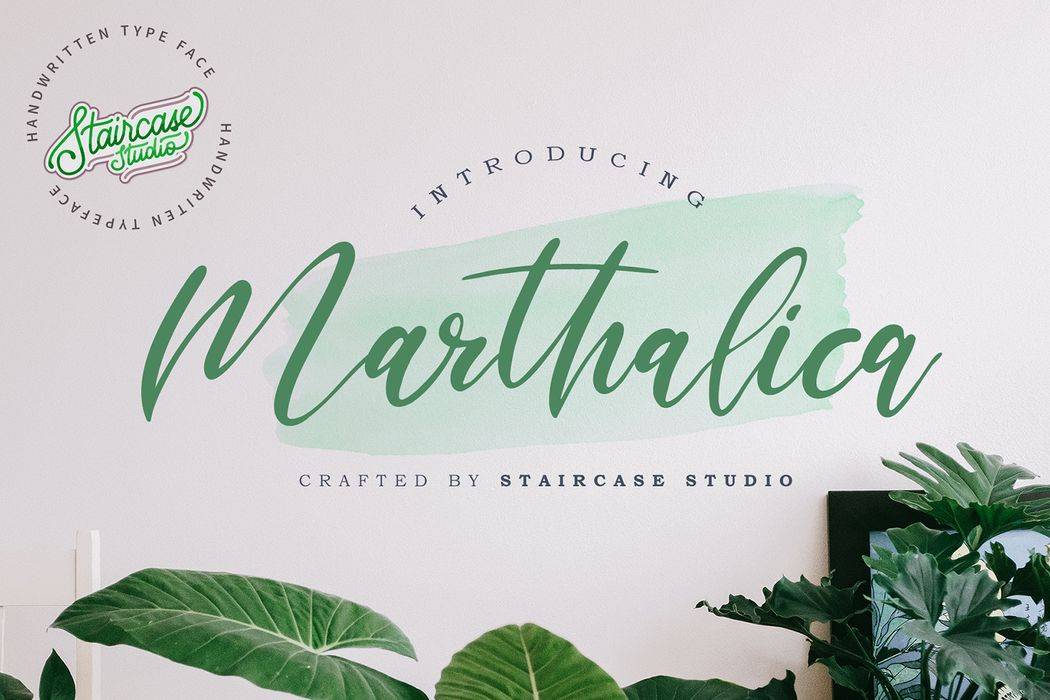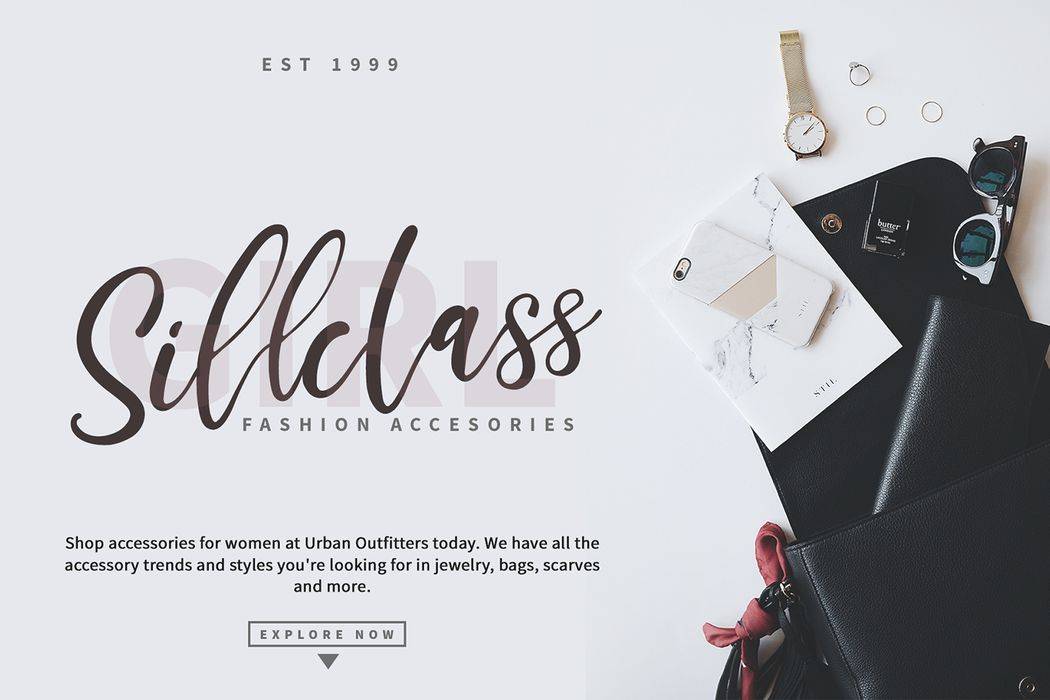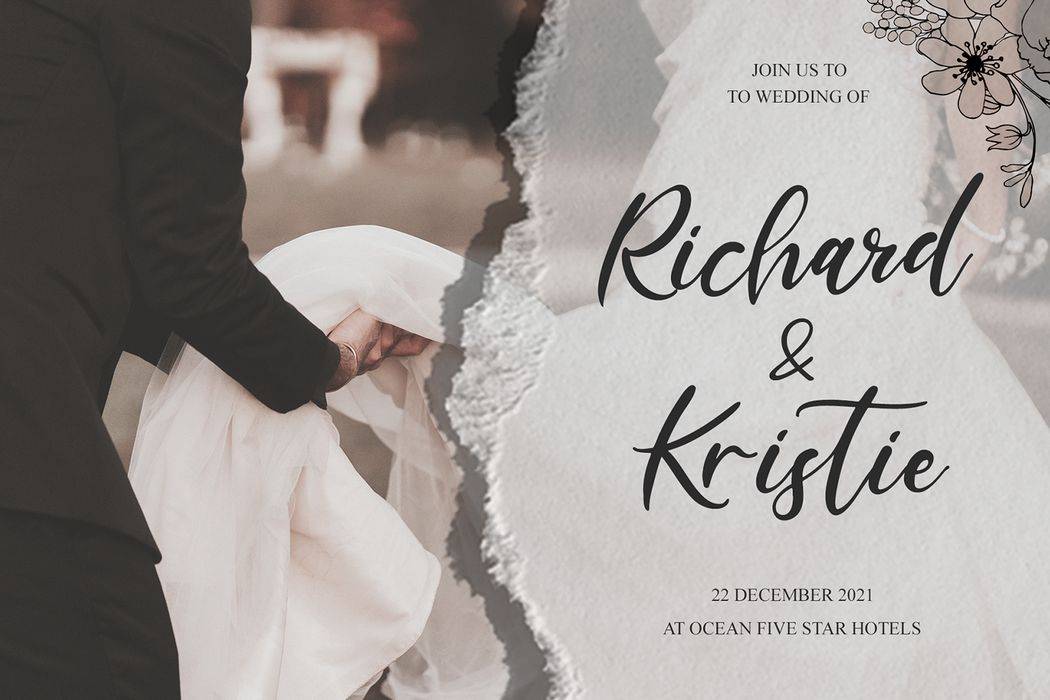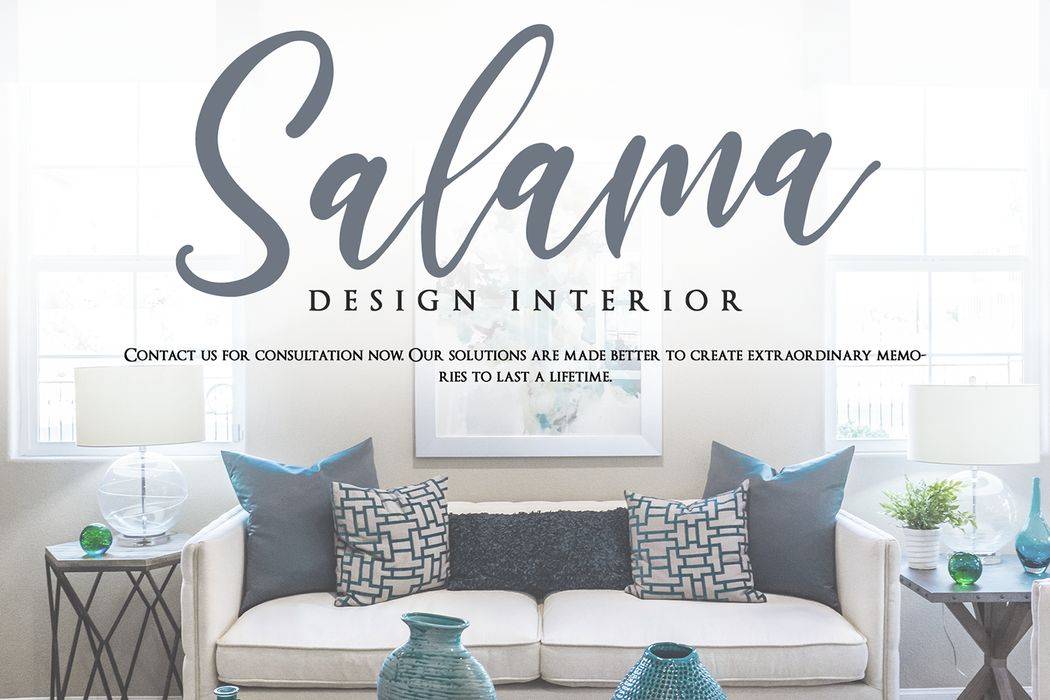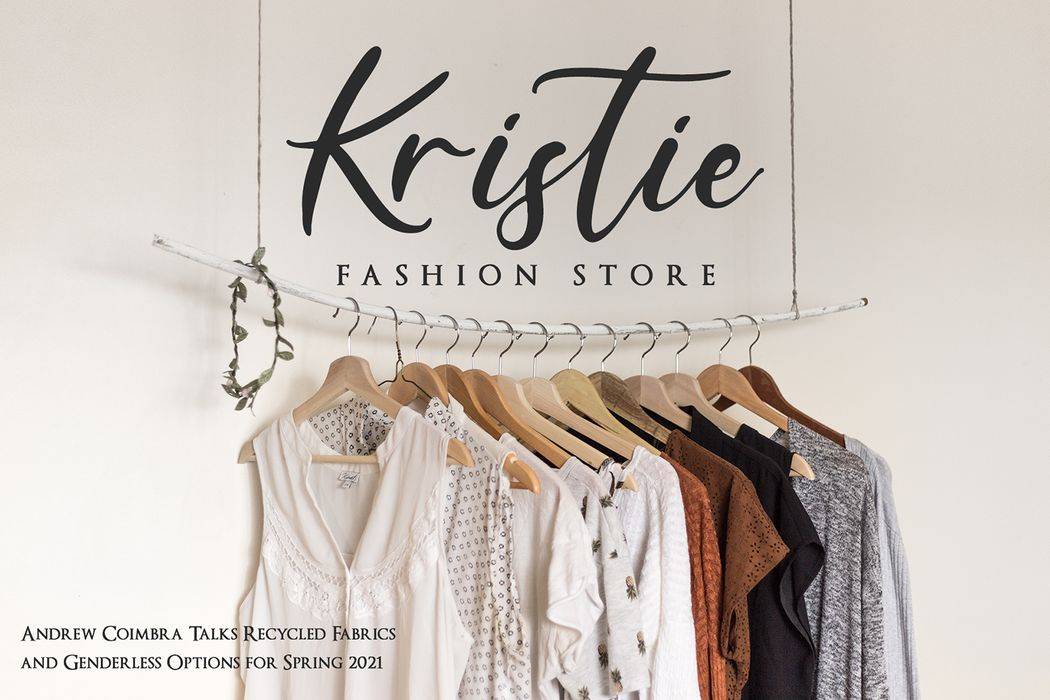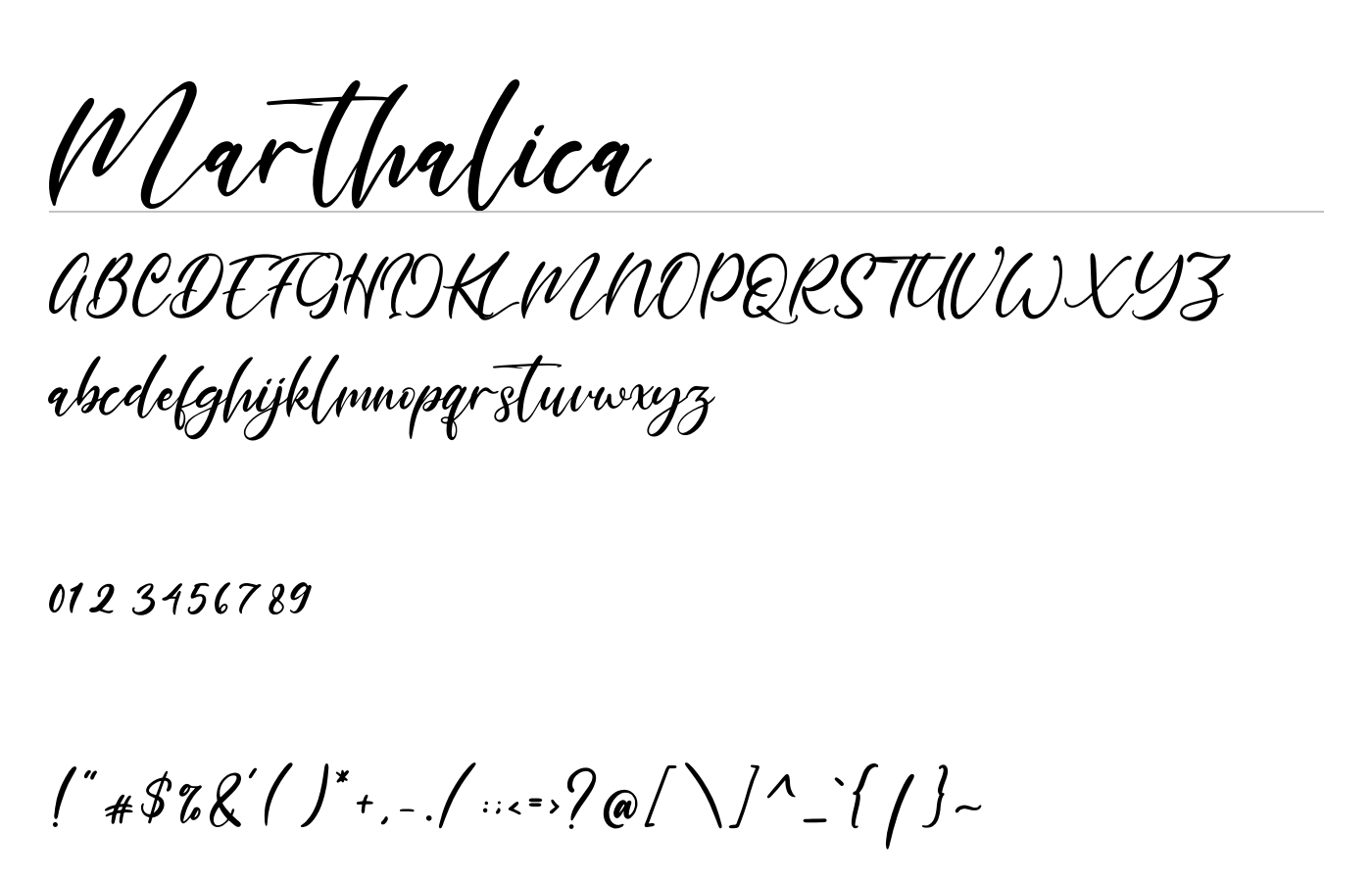
Marthalica is an elegant script font with a modern, handwritten feel, featuring smooth, flowing strokes and a lively, slightly casual style. Its medium weight and varied stroke thickness create a graceful yet approachable look, making it ideal for wedding invitations, branding, and feminine design projects where a personal, stylish touch is desired. This font works best in headlines or logos where its decorative charm can truly stand out.
Marthalica Font
About Marthalica Font